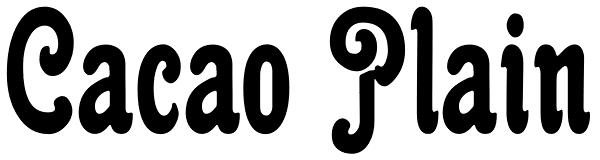
Cacao
Cacao is another one of my "found fonts". I found this one in an old advertising for a French cocoa drink. Since I am a vervent lover of cocoa, I will give you my recipe for a normal coffee mug full of delicious hot cocoa. Mix three heaped teaspoons...
Cacao Plain